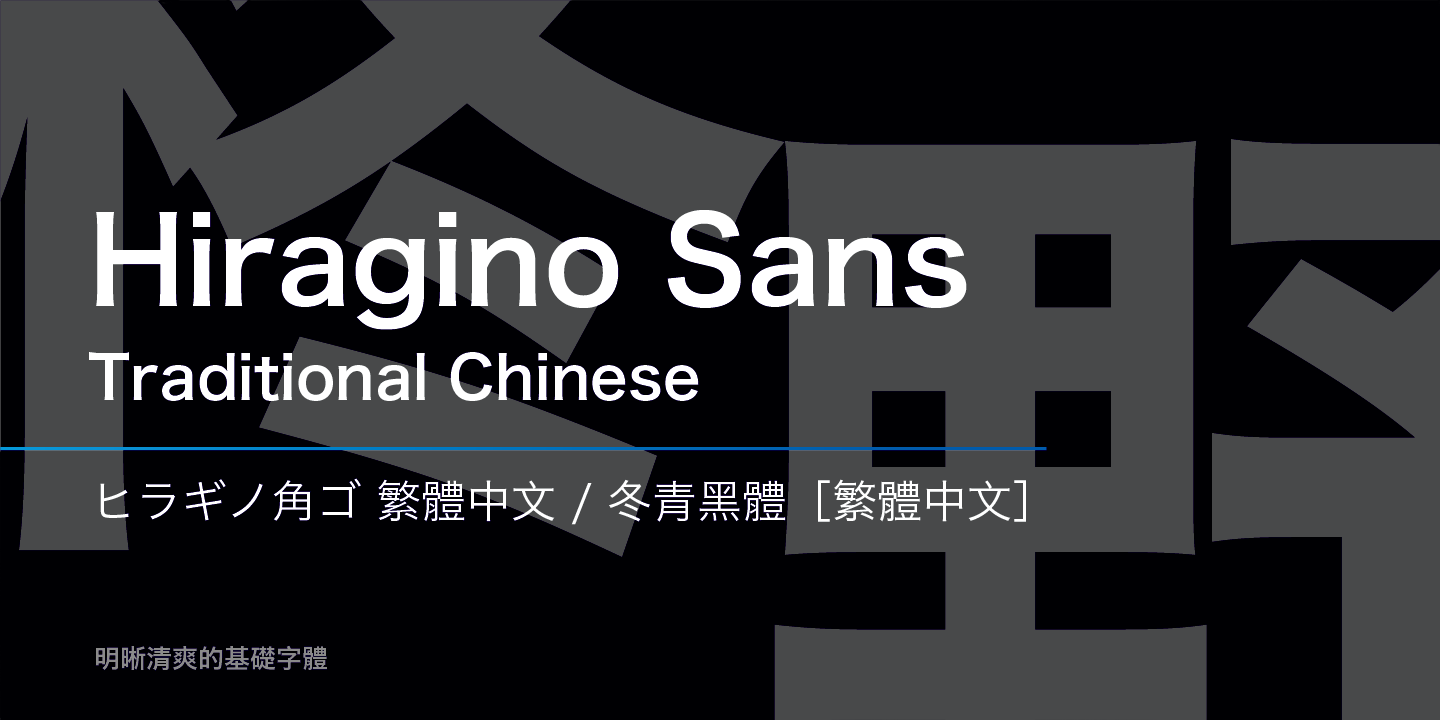
The Hiragino Sans TC Font is perfect for Chinese language publications, Asian business branding, international corporate communications, multilingual website designs, traditional Chinese signage, cultural center materials, educational textbooks, and cross-cultural marketing campaigns. This professional typeface excels in projects for Chinese restaurants, Asian cultural organizations, international businesses, educational institutions, and companies targeting Chinese-speaking markets in Taiwan, Hong Kong, and mainland China.
What makes the Hiragino Sans TC Font exciting is its exceptional balance of traditional Chinese character aesthetics and contemporary design principles. The font features meticulously crafted Traditional Chinese characters with optimal stroke weight distribution and spacing that ensures superior readability across all media. Its clean, professional appearance and cultural authenticity make it perfect for bridging Eastern and Western design sensibilities. The font's versatility and linguistic precision create trustworthy communication for diverse Chinese-speaking audiences.
The Hiragino Sans TC Font family includes comprehensive weight options: Light, Regular, Medium, Bold, and Heavy versions. Each weight maintains perfect character proportions while offering different visual hierarchies for complex multilingual layouts. The family also features extensive Traditional Chinese character sets, punctuation marks, and typographic symbols essential for professional Chinese typography.
Whether you're developing Asian market strategies, creating multilingual brand identities, or designing cross-cultural communications, the Hiragino Sans TC Font Free Download provides the ultimate solution for projects requiring authentic Traditional Chinese typography. This exceptional typeface ensures professional, culturally-appropriate visual communication, making it an indispensable resource for designers working with Chinese language content and Asian markets.